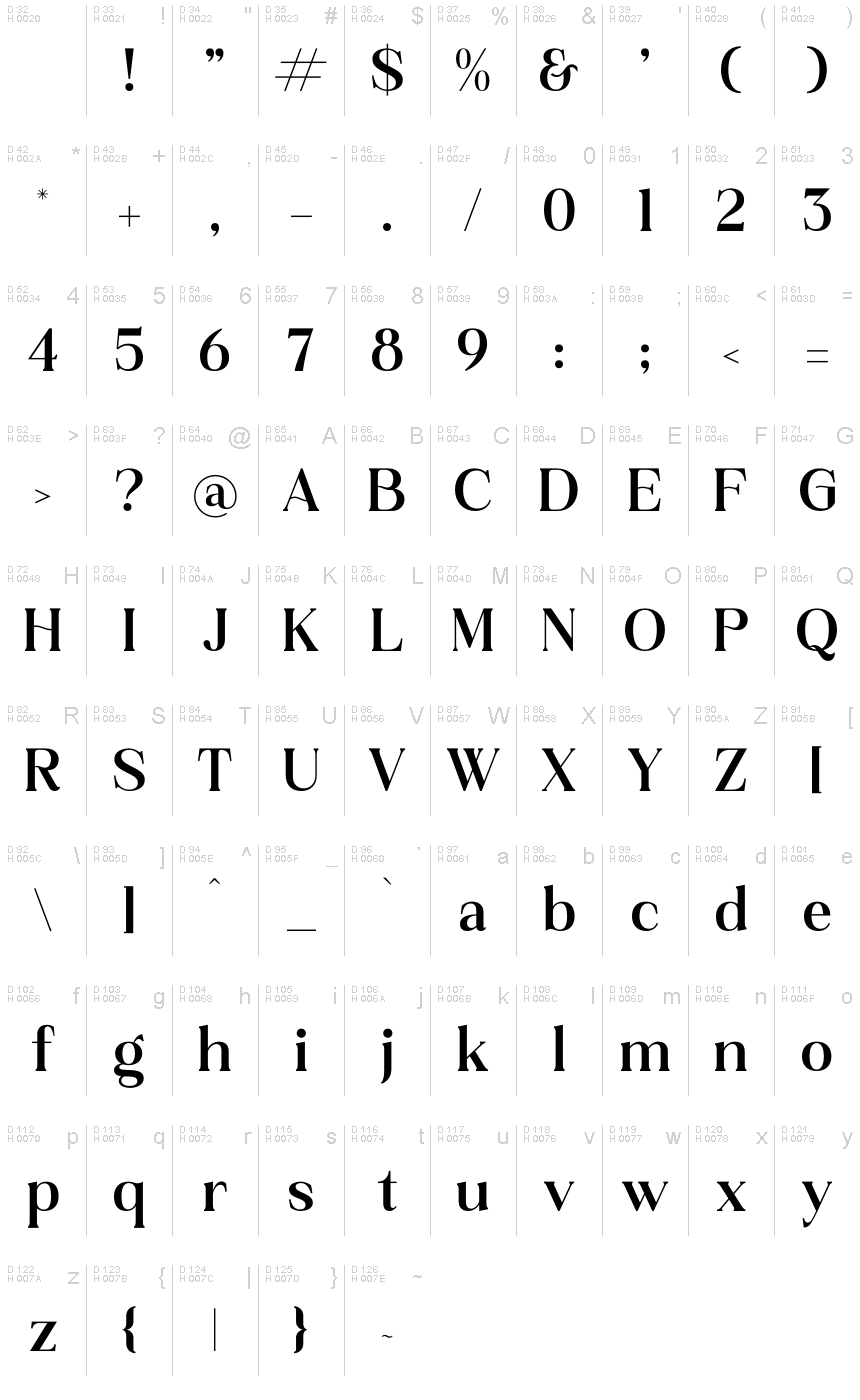
Rilenda
Rilenda, a creation by Storytype Studio, stands as a testament to the timeless elegance of serif fonts. With its poised and classic appearance, Rilenda brings a touch of sophistication to any text. The characters exhibit a harmonious balance, boasting graceful curves and refined serifs that lend the font an air of literary charm.
Its aesthetic appeal lies in its versatility—the font manages to be both stately and accessible, making it suitable for a wide array of design applications. Rilenda could effortlessly grace the pages of novels, elevate branding materials with its regal flair, or enhance editorial designs where readability and style must coexist seamlessly.
In essence, Rilenda is more than just type; it's an artistic statement that can transform words into immersive experiences for both print and digital canvases.